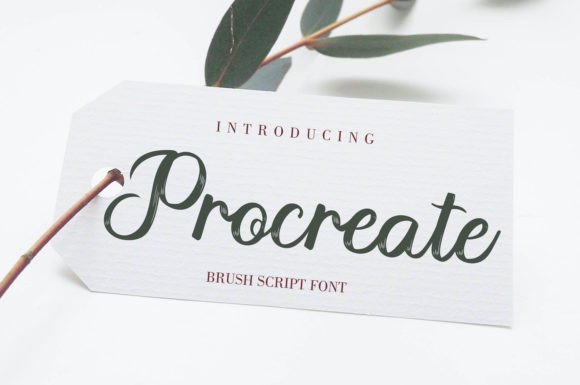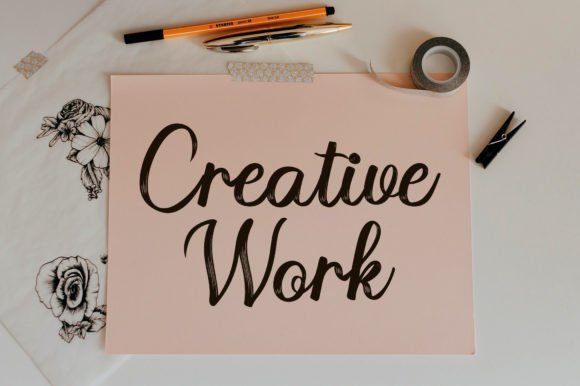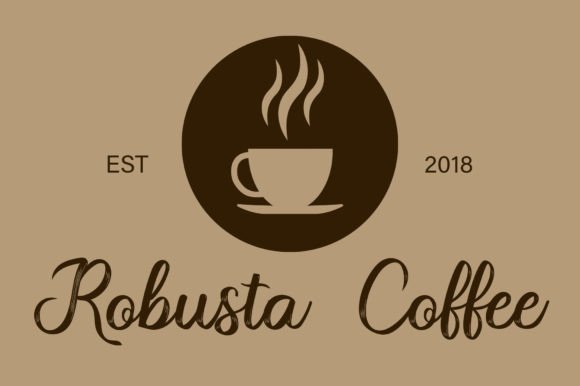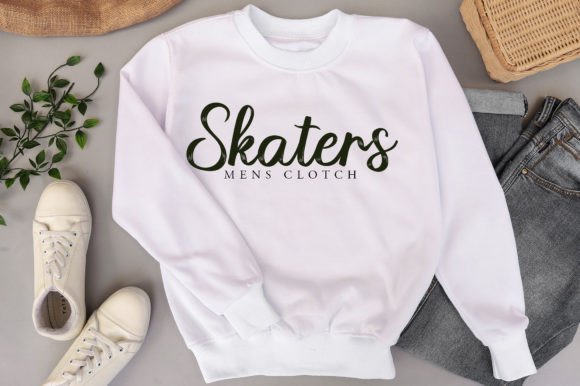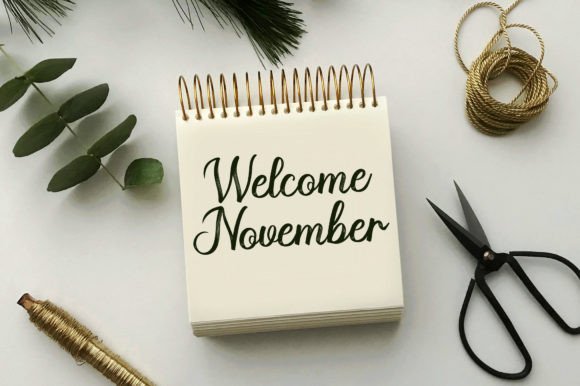
Procreate Font
About Procreate Font
“Procreate” is a contemporary and fashionable brush script font that effortlessly brings a touch of modernity and style to your design projects. This versatile font is a confident choice that’s sure to yield results you’ll love.
“Procreate” font embodies a sleek and chic aesthetic that instantly elevates your designs with a sense of contemporary flair. Its stylish brush strokes exude confidence and creativity, making it an ideal addition to a wide range of creative endeavors.
Whether you’re working on branding, posters, logos, packaging, or digital content, “Procreate” adds a distinctive and contemporary flair to your projects. It helps you make a strong visual impact while retaining an element of sophistication and modern appeal.
In the competitive world of design, it’s essential to create designs that stand out, and “Procreate” excels in this regard. It confidently enhances your projects, ensuring that they resonate with your target audience and leave a lasting impression.
In summary, “Procreate” is more than just a font; it’s a design asset that effortlessly blends modernity and style. It’s the perfect choice for projects where you want to make a bold statement while maintaining a sleek and contemporary look. Embrace “Procreate” and watch your creative endeavors come to life with a touch of confident, modern elegance.